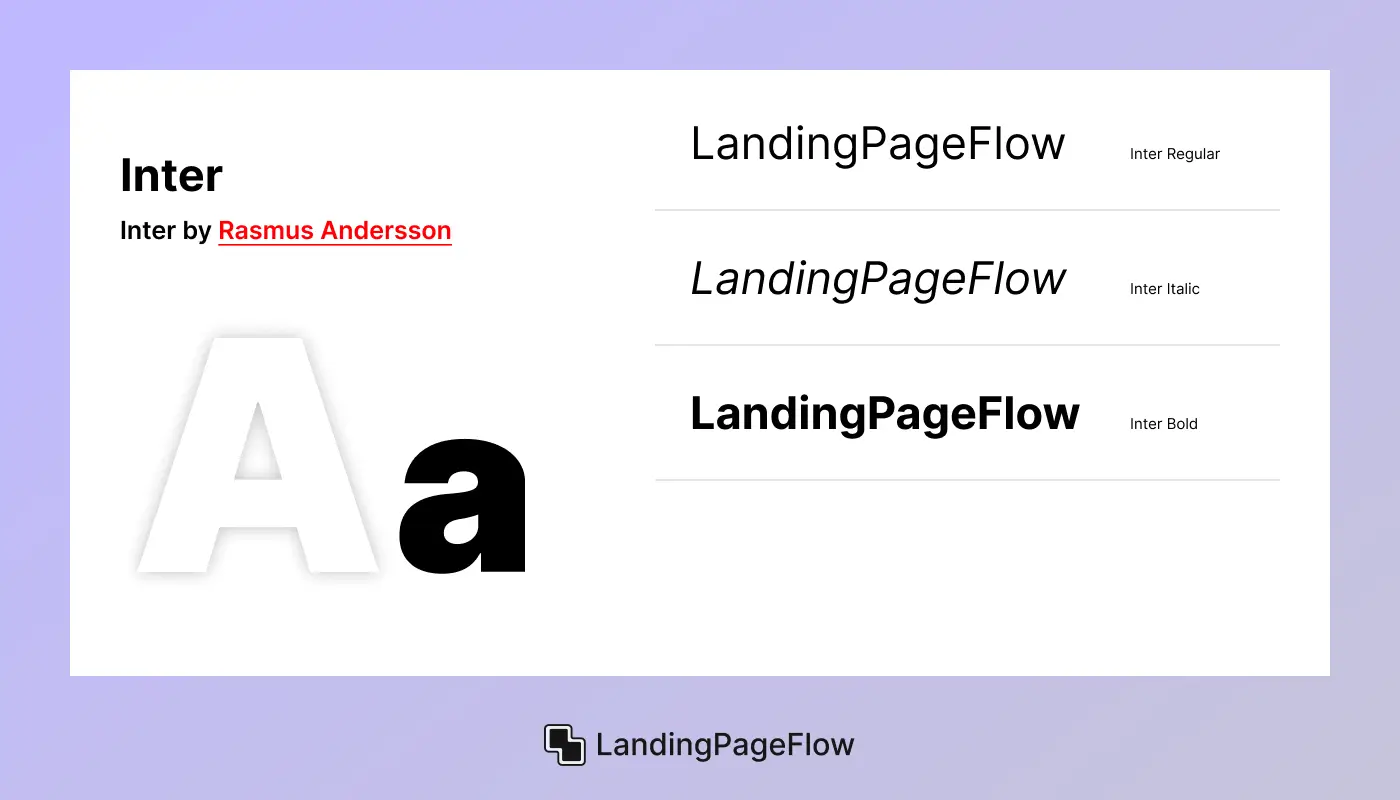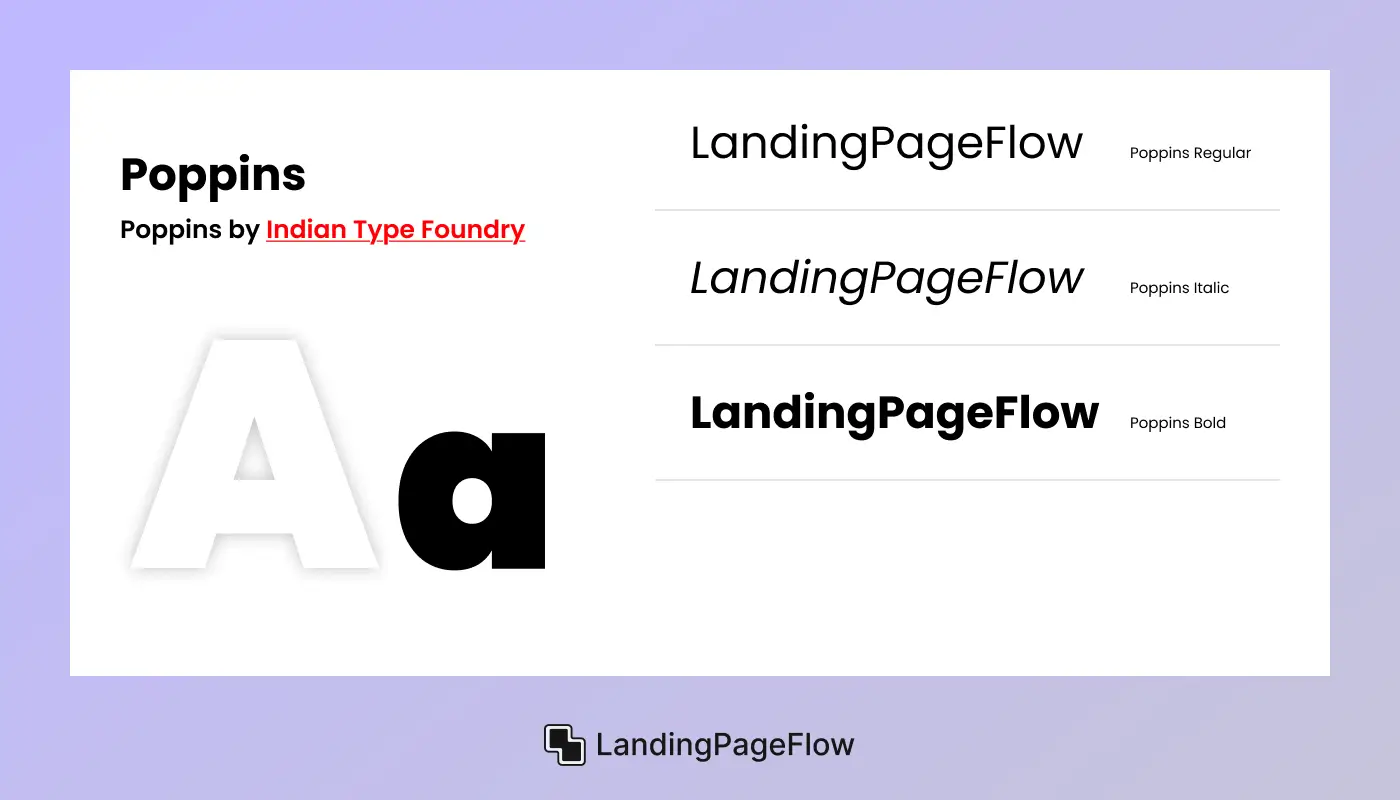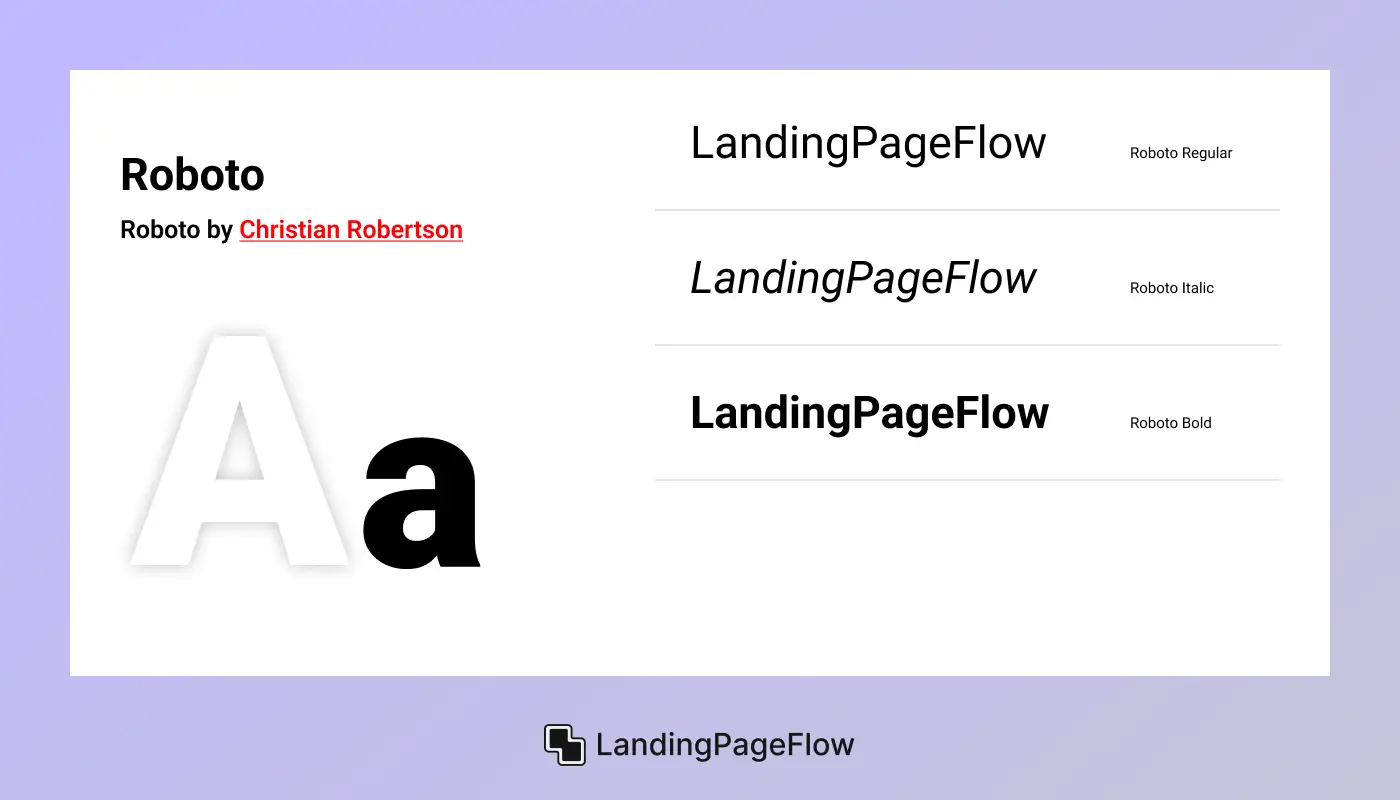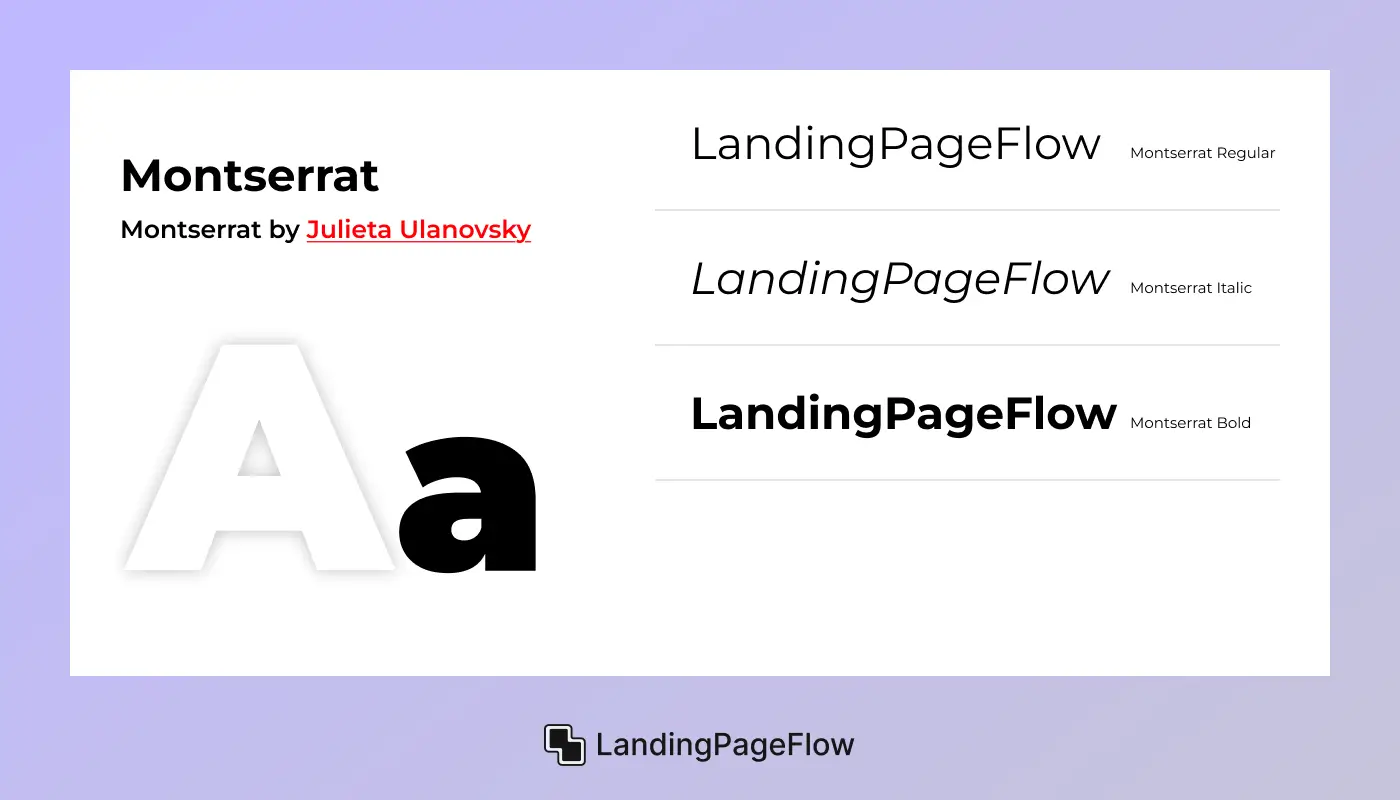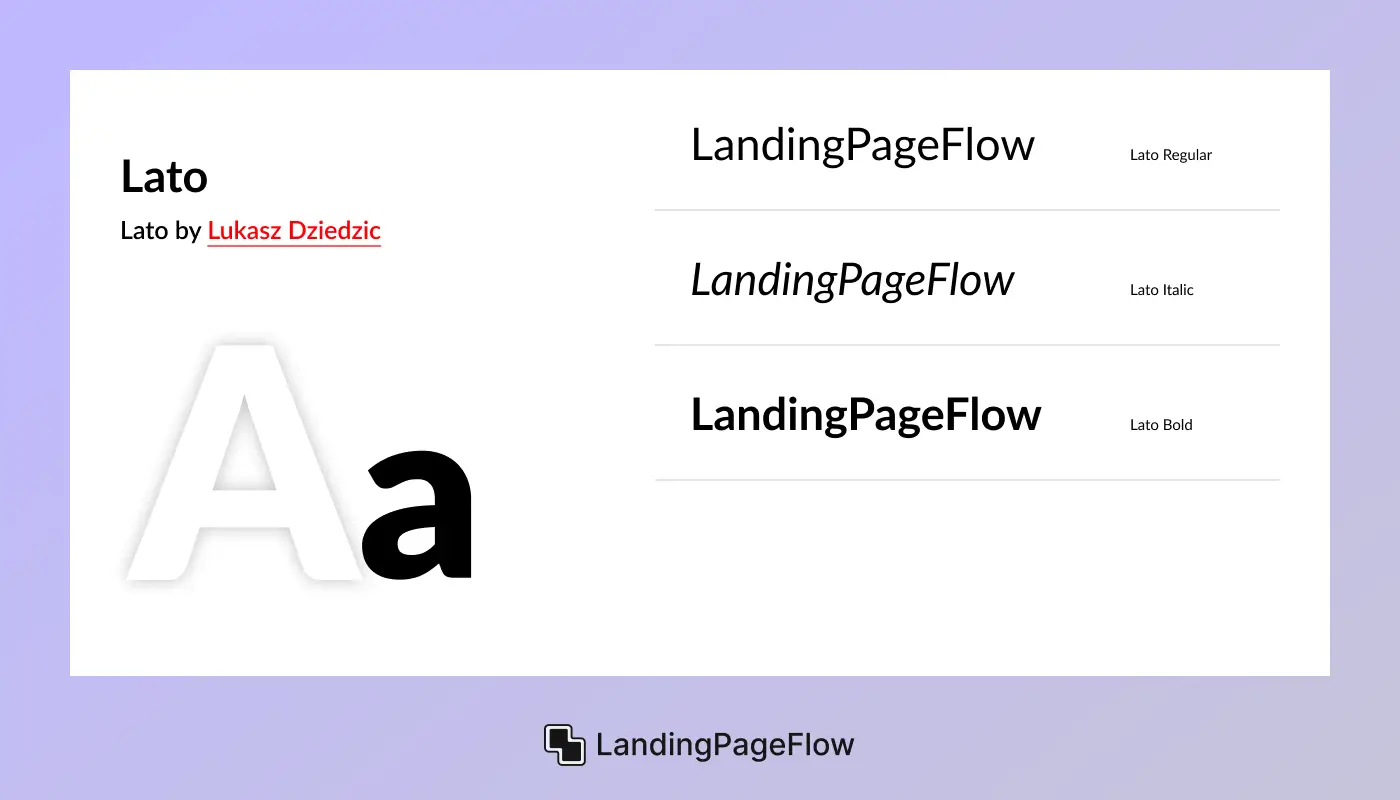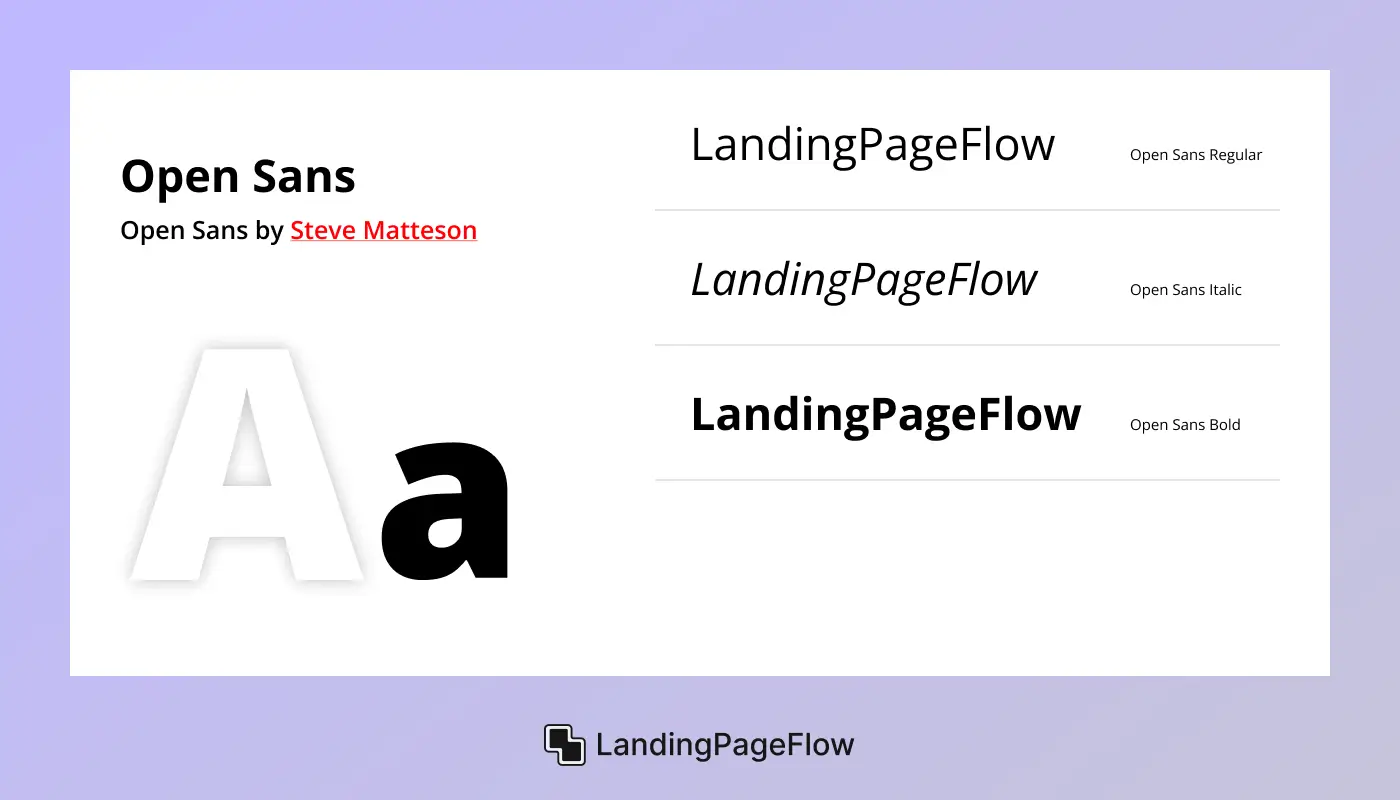
15+ | The Better Font Choices For Clean, Modern Landing Pages
Typography can make or break your landing page design. Choosing the right clean and modern fonts not only enhances visual appeal but also improves readability, strengthens brand identity, and drives more conversions.
The best fonts for landing pages are crafted to deliver clarity, support smooth eye movement, and create hierarchy across headlines, body text, and calls to action.
In modern web design, especially for platforms like Webflow, Framer, or WordPress, typography is crucial in how users perceive your message and interact with your content.
Sans-serif fonts, geometric styles, and neutral typefaces are favored for their clean appearance and mobile responsiveness, making them ideal for minimalist designs, SaaS pages, and eCommerce landing pages alike.
Selecting the right font can improve user experience (UX), increase dwell time, and reduce bounce rates. In this guide, we’ll explore 15+ of the best font choices that balance style, clarity, and performance for modern, high-converting landing pages in 2026.
1. Why Typography Matters on Landing Pages?
Typography is more than just choosing a pretty font - it’s a strategic design element that directly affects how users engage with your landing page. The right font choice enhances readability, creates visual hierarchy, and helps users navigate content effortlessly.
Clean and modern fonts support brand credibility, establish tone, and guide users’ attention toward key areas like CTAs and product highlights.
On a landing page where you often have seconds to make an impression, typography becomes essential to communicating trust and professionalism.
Additionally, font selection plays a crucial role in conversion rate optimization (CRO). A poorly chosen font - too decorative, too light, or hard to read - can increase bounce rates and reduce user confidence.
Roles & Responsibilities:
1. Establishing Visual Hierarchy
Typography defines the reading order by differentiating headings, subheadings, and body content. This helps users scan quickly and focus on what matters most.
2. Enhancing Readability and Accessibility
Clean font choices ensure that your message is easy to read, especially across devices. Good typography supports legibility, reduces eye strain, and helps users consume content effortlessly.
3. Communicating Brand Voice
The tone and style of your fonts reflect your brand identity - whether it’s bold and modern, minimal and elegant, or professional and trustworthy.
4. Driving User Action
Well-placed, well-styled text can guide users toward CTAs, forms, or key conversion points. Typography helps draw attention without needing excessive design elements.
5. Supporting Mobile Responsiveness
Fonts must scale and display properly across screen sizes. Typography needs to stay clear and consistent across mobile, tablet, and desktop views.
6. Boosting Engagement and Dwell Time
By improving content flow and reducing friction, effective typography increases engagement, reduces bounce rates, and enhances user experience (UX).
2. Best Practices For Using Fonts on Landing Pages
Choosing the right typography isn’t enough - it must also be implemented effectively. These best practices help ensure your fonts enhance readability, support conversion goals, and maintain design consistency across your landing page.
1. Limit Font Families
Stick to two or three font families - typically one for headings and one for body text. Too many fonts can clutter the page and confuse users.
2. Prioritize Readability
Use clean, legible fonts with appropriate line height, spacing, and font weight. Avoid overly thin or decorative typefaces, especially for body text.
3. Use Visual Hierarchy
Vary font size, weight, and style to guide users from headline to CTA. Make sure your headings stand out and create a clear flow of content.
4. Optimize for Mobile Devices
Ensure fonts are responsive and scale well on smaller screens. Maintain at least 16px for body text and avoid tightly spaced elements.
5. Maintain Strong Contrast
Use sufficient color contrast between text and background to improve accessibility and readability, especially in low-light conditions.
6. Pair Fonts Wisely
Choose font combinations that complement each other, like a bold sans-serif for headlines and a neutral serif for body text, for visual balance and harmony.
7. Test Across Browsers and Devices
Not all fonts render the same everywhere. Always test your landing page fonts on multiple browsers and devices to catch inconsistencies.
5. What font size should I use on landing pages?
Use at least 16px for body text and scale up headings based on importance. Keep spacing and contrast in mind to ensure readability, especially on mobile.
6. Are serif fonts bad for landing pages?
Not at all. While sans-serif fonts dominate digital design, a clean serif can work well for editorial brands or premium positioning if used sparingly.